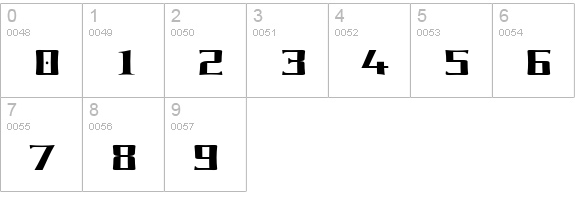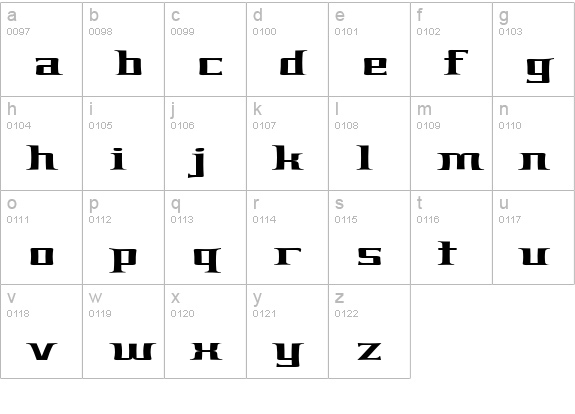
Cultural Stupidity Font Details
Cultural Stupidity font is a unique and eye-catching typeface that perfectly captures the essence of creativity and quirkiness. With its bold and playful design, this font is sure to make any project stand out from the crowd. Whether you're working on a poster, logo, or any other design project, Cultural Stupidity font is the perfect choice to add a touch of fun and personality. What sets Cultural Stupidity font apart is its versatility – it can be used for a wide range of projects, from modern and edgy to whimsical and lighthearted. Its distinctive characters and stylish flourishes will bring a touch of originality to any design. The best part? Cultural Stupidity font is completely free to download at FontsMarket.com. So why wait? Add a touch of creativity to your designs today with Cultural Stupidity font!